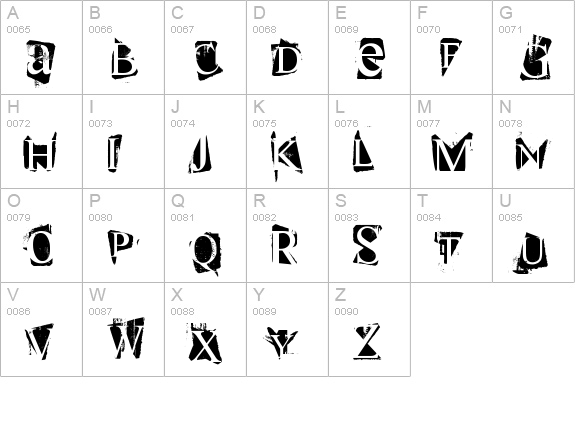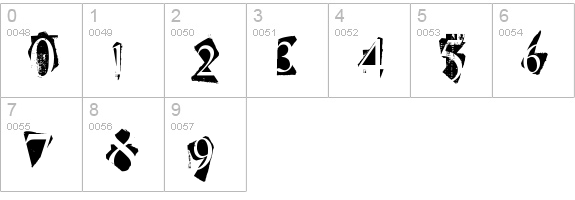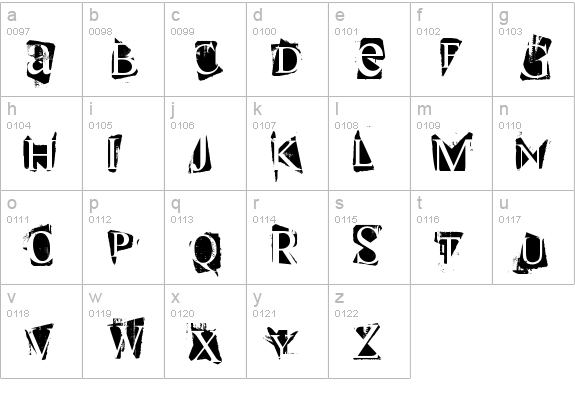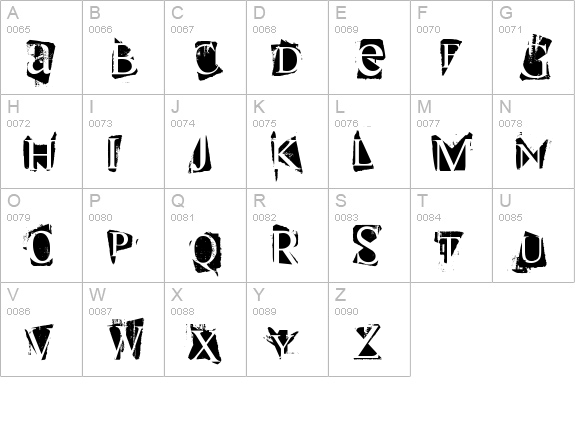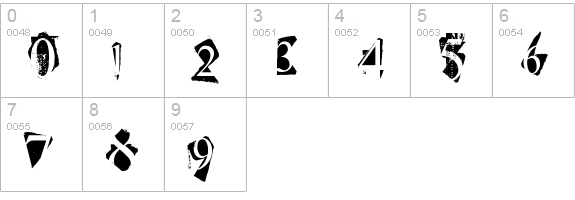
super danger Font Details
Introducing the Super Danger Font, a bold and edgy typeface that exudes a sense of danger and excitement. With its sharp angles and striking design, this font is perfect for grabbing attention and making a statement. The Super Danger Font is ideal for projects that require a touch of danger and risk, adding a dynamic and powerful element to any design. Best of all, the Super Danger Font is available for free download at FontsMarket.com. Whether you're working on a poster, logo, or any other creative project, this font is sure to make a strong impact. Don't miss out on the opportunity to add this unique and eye-catching font to your collection. Download the Super Danger Font today and unleash its powerful energy in your designs.